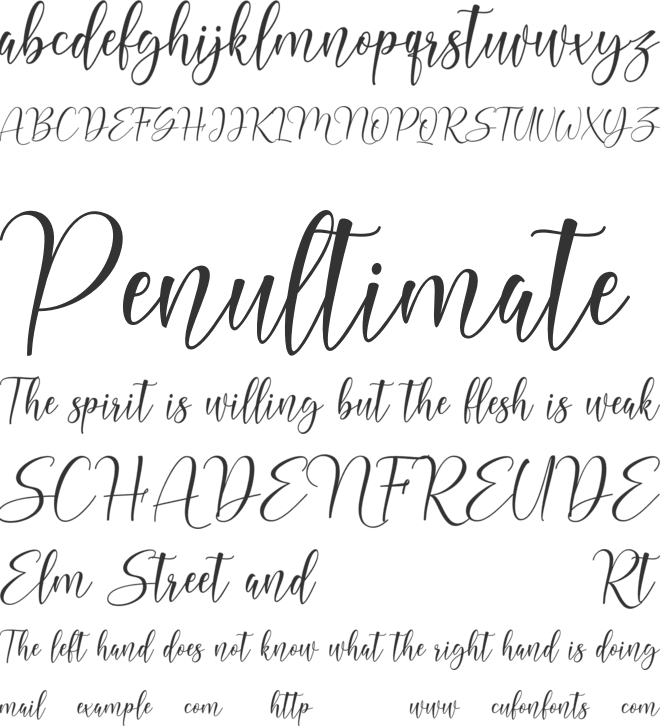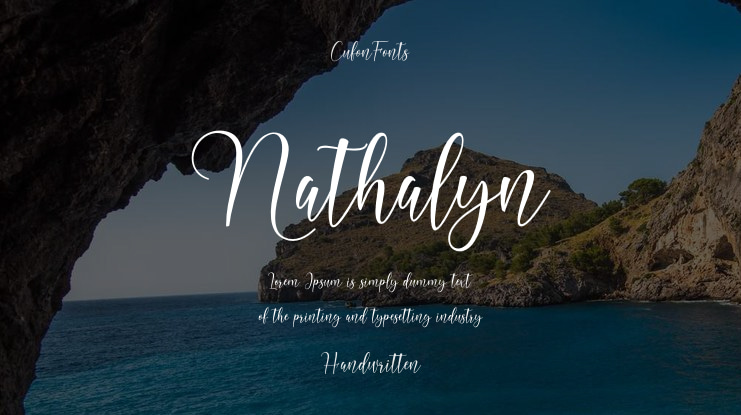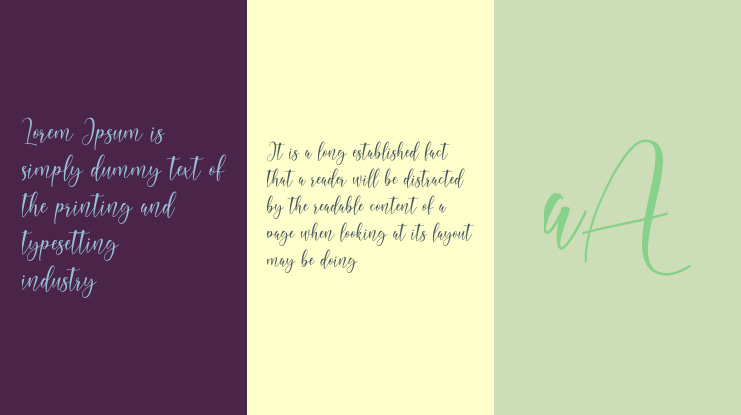
Nathalyn Font captures the beauty of handwritten elegance and the precision of modern design. This handwritten calligraphy font features graceful, flowing lines that create a sense of sophistication in every word. Perfect for branding, invitations, cosmetics, and luxury packaging, Nathalyn enhances any creative project with timeless charm. Its cursive typography and refined script lettering make it a go-to choice for designers who value style and personality.
From wedding stationery to high-end logo design, Nathalyn offers versatility and elegance. Its smooth curves and modern cursive font structure deliver an authentic handwriting feel that’s both romantic and professional. Whether you’re crafting a signature font, creating aesthetic branding, or designing elegant social media visuals, Nathalyn brings your ideas to life with artistic beauty and sophistication.